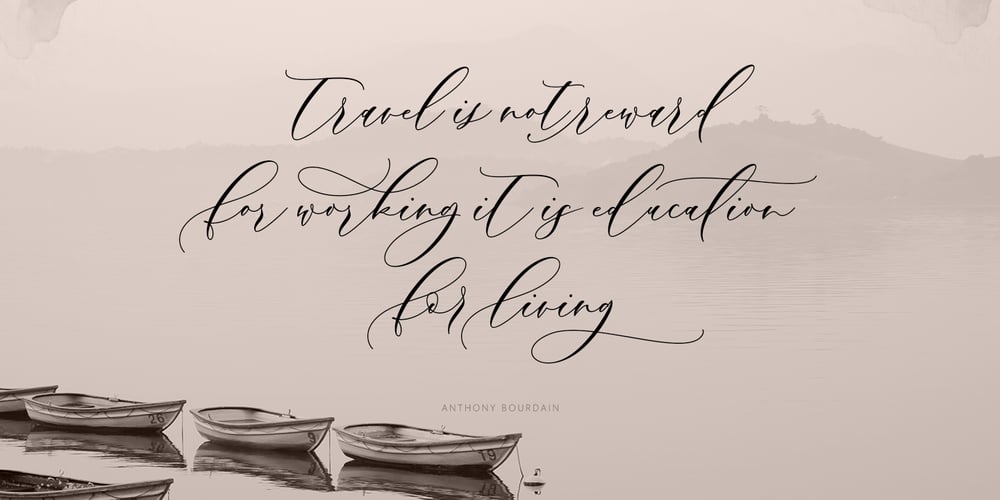
Dearly Rose Font Family was designed by Jamaluddin and published by Jamalodin. Dearly Rose contains 1 styles and family package options. Dearly Rose Script is a modern calligraphy script font, every single letters has been carefully crafted to make your text look beautiful. With modern script style this font will be perfect for many different project, example: invitations, greeting cards, posters, name card, quotes, blog header, branding, logo, fashion, apparel, letter, stationery and more! Dearly Rose Script come with 540+ glyphs. The alternative characters were divided into several Open Type features such as Swash, Stylistic Sets, Stylistic Alternates, Contextual Alternates. The Open Type features can be accessed by using Open Type savvy programs such as Adobe Illustrator, Adobe InDesign, Adobe Photoshop Corel Draw X version, And Microsoft Word. And this Font has given PUA unicode (specially coded fonts). so that all the alternate characters can easily be accessed in full by a craftsman or designer. Dearly Rose Script : Uppercase & Lowercase International Language & Symbols Support Punctuation & Number PUA Unicode Range Standard Stylistic Alternates Stylistic Set 1-17 Character Variant Contextual. If you don’t have a program that supports OpenType features such as Adobe Illustrator and CorelDraw X Versions, you can access all the alternate glyphs using Font Book (Mac) or Character Map (Windows). If you have any question, don’t hesitate to contact me by email: jamalodin11@gmail.com Thanks for your visit.